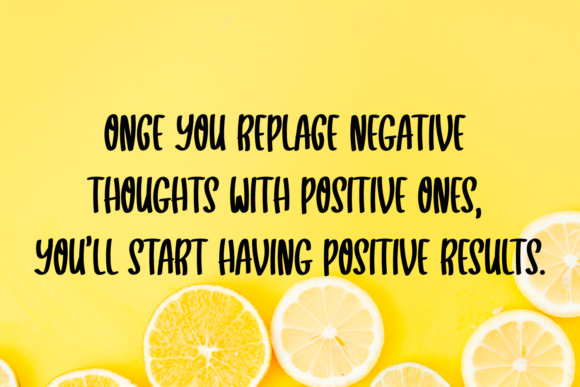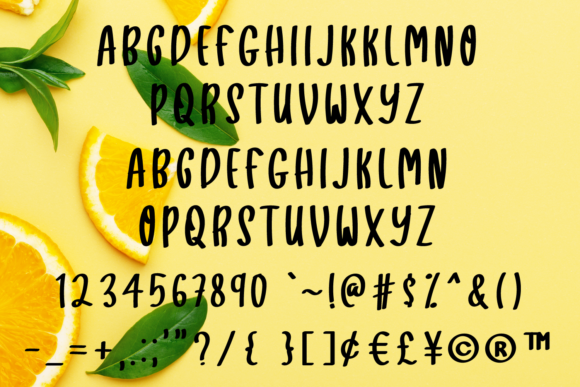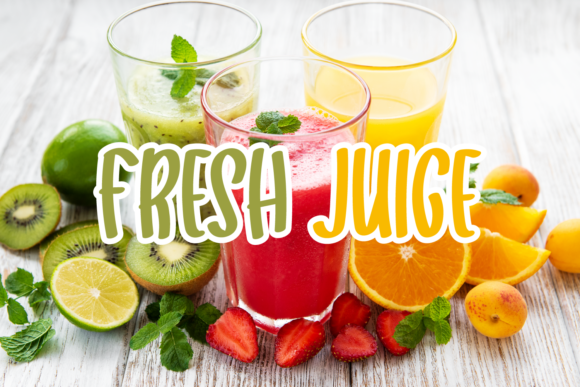
Introduction to Lemonade Milk Font Font
Fonts play a crucial role in design, and the Lemonade Milk Font font is a typeface that brings both character and versatility to any project. Whether you’re working on a branding project, a website, or a print design, the Lemonade Milk Font font offers a unique style that can elevate your work.
Lemonade Milk is a simple, quirky and adaptable handwritten font.
Its informal style and casual vibe will make this font a go-to choice for each of the creations that require a relaxed touch .
Key Features of Lemonade Milk Font Font
Why Choose Lemonade Milk Font Font?
The Lemonade Milk Font font is more than just a typeface – it’s a design tool that helps you communicate your message with style and clarity. Its unique character set and versatile design make it suitable for a wide range of applications, from elegant invitations to bold headlines.
With its carefully crafted letterforms and balanced proportions, the Lemonade Milk Font font ensures readability and visual appeal across all mediums.
What makes Lemonade Milk Font font special?
The Lemonade Milk Font font stands out with its unique design, exceptional readability, and versatility across various design applications.